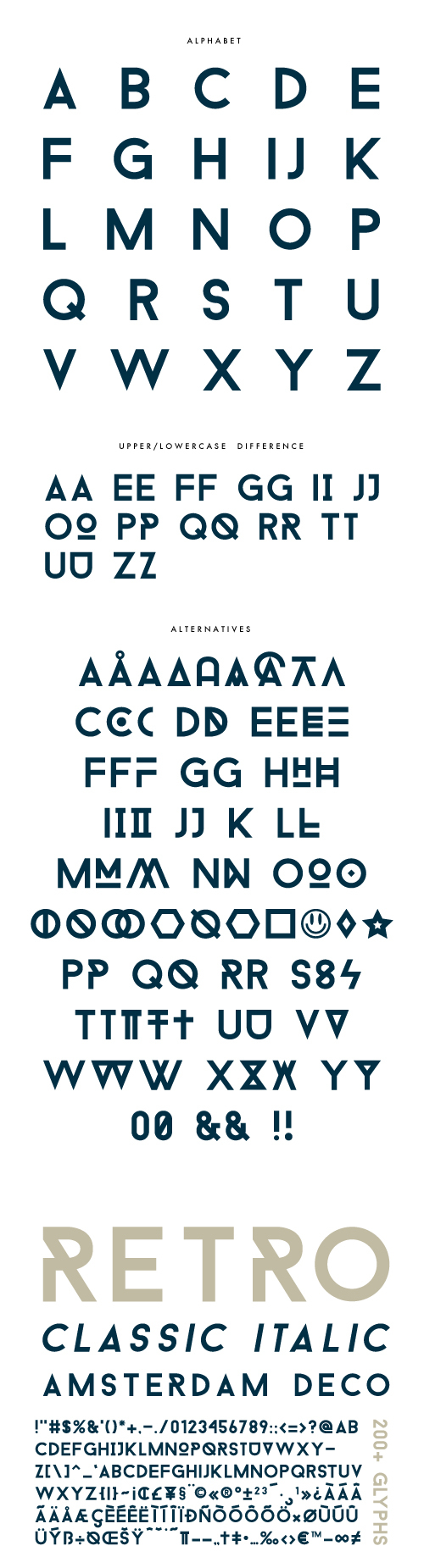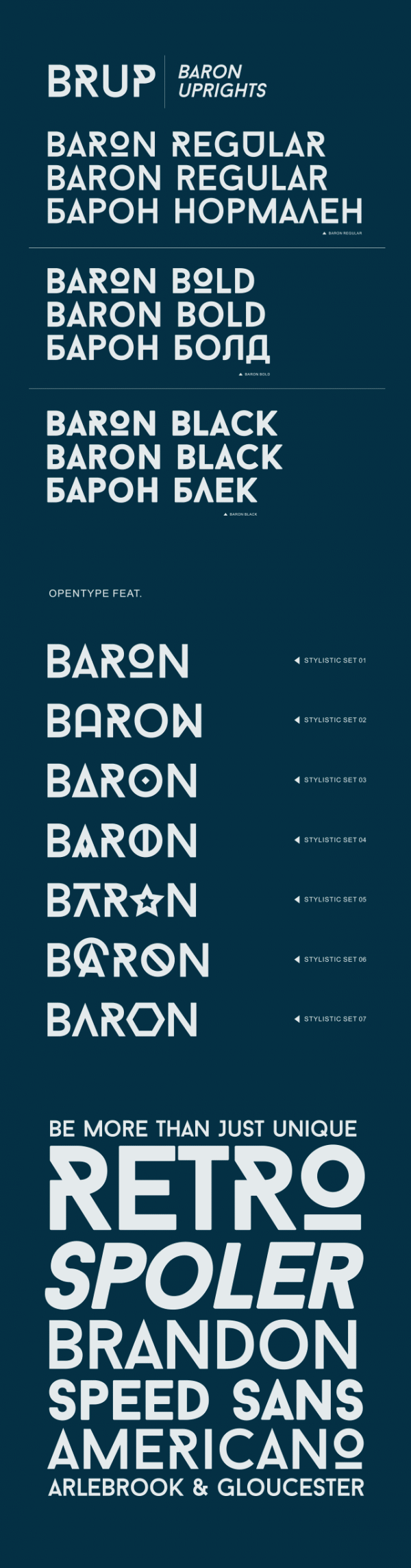
Lovely Font and Vectors for Free Download
This morning, my… virtual flight brought me to Bulgaria where I found some amazing young designers! Check out these wonderful vectors and a great font for posters and headlines!
Flat Hipster Icons Design Pack
BARON (Free typefamily)
Are you looking for a free uppercase display typeface? Baron is for you! Inspired by the classic sans serif font family’s. This typeface is perfect for usage in posters and headlines.
Baron has been designed by FRANK HEMMEKAM, a 19 years old, Graphic Design student at Cibap in Bulgaria.